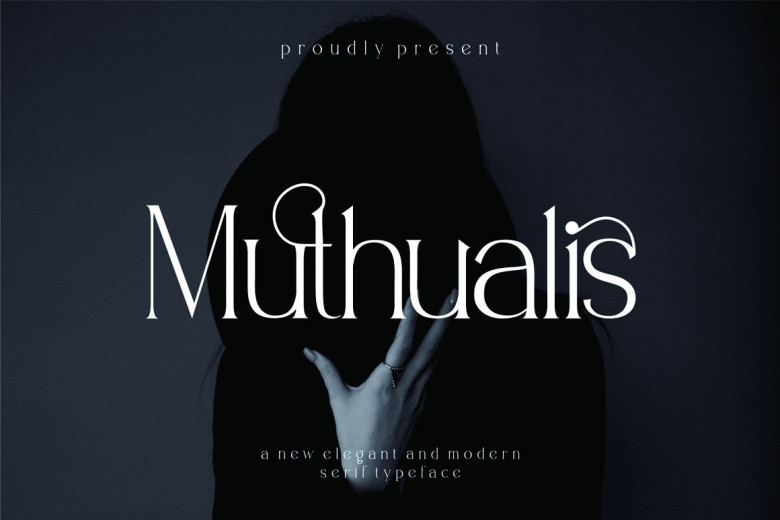
Muthualis Font
Meet Muthualis is beautiful display modern serif with contrast style. Perfect to be used on such fashionable-related media such as logos, title, lifestyle magazine, and journals, and more! and the best part, this font also has creative ligature to make the font more premium.
Muthualis Serif Font